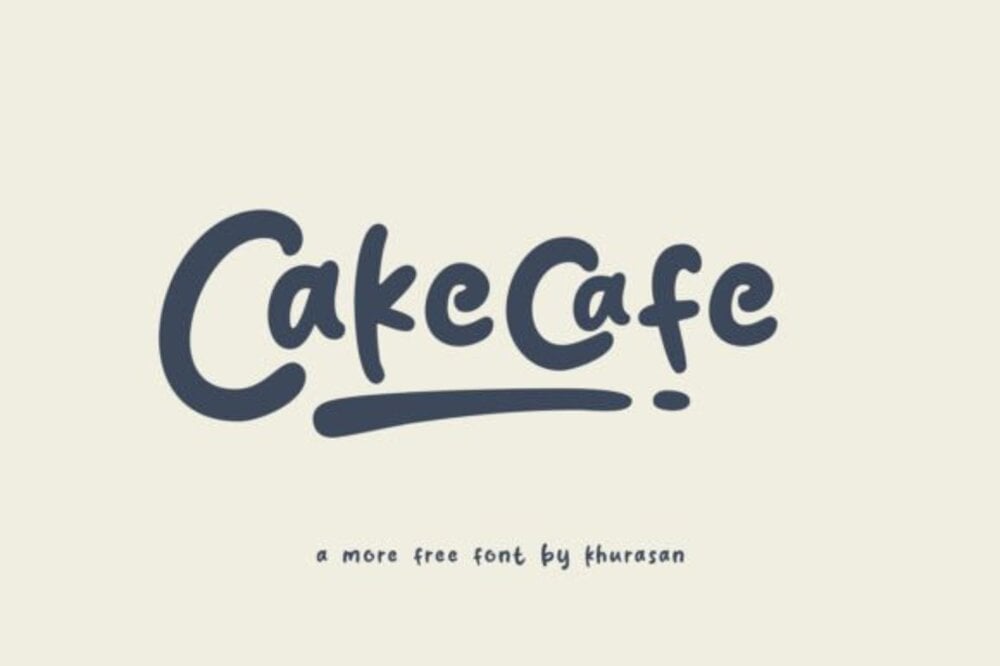
Cakecafe Font
Cakecafe Font is a sweet, playful typeface that evokes the charm of a cozy bakery. With its smooth, rounded letters and delicate flourishes, it’s perfect for dessert shops, cafes, branding, and menus. The font’s lighthearted style adds a touch of warmth and sweetness, making it an ideal choice for projects that need a fun, inviting, and delicious aesthetic.